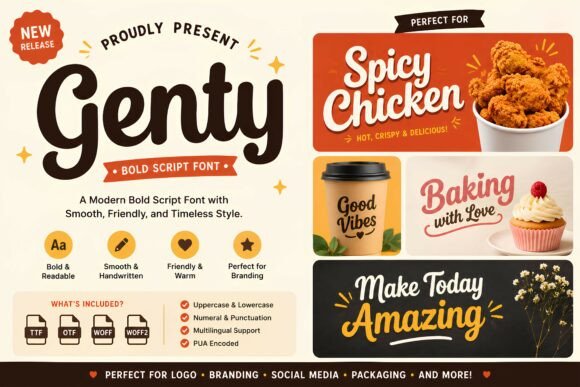
Genty: The Modern Script Font for Bold Branding
In the crowded digital landscape, a single visual element can determine whether a user scrolls past or stops to engage. As marketers and content creators, we know that our audience's attention span is fleeting. We need design assets that communicate warmth, authority, and personality instantly. This is where Genty steps in. More than just another script font, Genty is a strategic tool designed to elevate your brand identity and cut through the noise of social media feeds, email inboxes, and landing pages.
The Visual Language of Genty
Genty defines itself as a modern and stylish bold script typeface. Unlike traditional calligraphy that can sometimes feel dated or overly ornate, Genty brings a contemporary edge to the handwritten font category. Its smooth strokes and strong character create a visual rhythm that feels both personal and professional. When you apply Genty to your projects, you are choosing a mood that is warm, friendly, yet confident.
For a marketing specialist, this duality is crucial. You want your brand to feel approachable enough to build trust but distinct enough to stand out as a premium offering. Genty achieves this balance by maintaining excellent readability even at larger sizes, making it an ideal display font for headlines and key messaging. It transforms simple text into a statement, adding a layer of sophistication to everything from product launches to seasonal promotions.
Mastering Social Media and Digital Campaigns
The primary battleground for modern marketing is the mobile screen. Whether it is an Instagram Story, a Pinterest pin, or a YouTube thumbnail, the space is limited, and the competition for eyes is fierce. Genty excels in these environments because its bold weight ensures visibility even on small devices. When designing a reel cover or a promotional graphic, using a thin, delicate script often results in lost messages. Genty, however, commands attention immediately.
- Instagram Posts and Stories: Use Genty for overlay text on lifestyle images. Its friendly nature pairs perfectly with human-centric content, such as behind-the-scenes looks or customer testimonials.
- YouTube Thumbnails: In video marketing, the title is your hook. A bold script like Genty can differentiate your channel from competitors using standard sans serif fonts, increasing click-through rates.
- Pinterest Pins: On platforms driven by aesthetics, Genty adds an editorial touch to infographics and blog teasers, signaling high-quality content before the user even clicks.
Consider a sale announcement for an online shop. Instead of a generic "SALE" banner, imagine the word "Sale" rendered in Genty, perhaps in a vibrant color against a neutral background. The handwritten style implies exclusivity and urgency without feeling aggressive. Similarly, for a webinar banner, Genty can be used for the event title, creating a sense of invitation and community that rigid geometric fonts cannot replicate.
Building Visual Hierarchy and Readability
One of the most common pitfalls in digital design is poor hierarchy. If every element fights for attention, the message gets lost. Genty is designed to serve as a dominant header or a focal point. Because it is a bold script, it naturally draws the eye first, establishing a clear top-down flow for your viewer. This makes it perfect for website banners, email headers, and landing page titles where you need to guide the user's journey.
However, readability is paramount. While Genty is legible, it is best reserved for short text, headlines, callouts, and titles. It should not be used for long paragraphs of body copy. For those sections, pairing Genty with a clean sans serif font creates a harmonious contrast. The structured simplicity of a sans serif balances the fluidity of Genty, ensuring that your campaign graphics remain easy to read while retaining their stylistic flair.
For a more sophisticated, editorial look, consider pairing Genty with a classic serif font. This combination works exceptionally well for fashion brands, luxury goods, or high-end service providers. The serif adds tradition and stability, while Genty injects modern energy and creativity. This strategic font pairing allows you to craft a unique brand voice that resonates across different demographics.
Strategic Applications for Brand Identity
Consistency is the backbone of brand recognition. Using a distinctive typeface like Genty across all your design assets helps cement your brand in the minds of your audience. Whether it is a logo mark, a packaging design element, or a recurring motif in your social media templates, Genty provides a recognizable signature.
Think about personal branding for influencers or coaches. A custom logo design featuring Genty can convey authenticity and connection. It suggests that there is a real person behind the brand, fostering a deeper emotional bond with followers. For product teasers, the font's dynamic strokes can imply movement and excitement, building anticipation for a launch.
From crafting scroll-stopping thumbnails to designing cohesive brand identities, Genty empowers you to tell your story with confidence. By integrating this modern script into your workflow, you enhance the aesthetic quality of your work and strengthen the connection with your audience. It is not just about how your text looks; it is about how your message feels. With Genty, your content doesn't just get seen—it gets remembered.